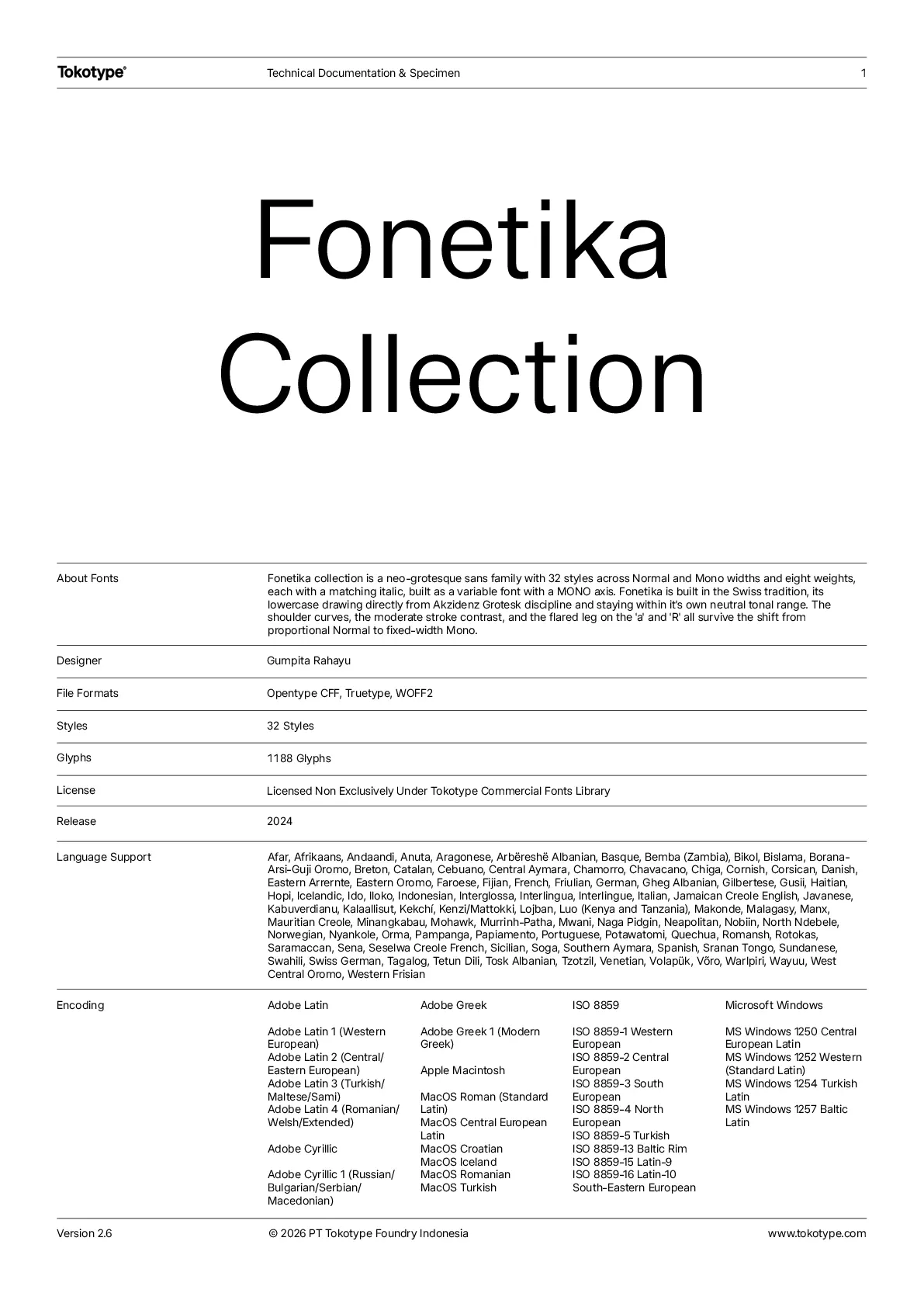
Fonetika Collection
Fonetika collection is a neo-grotesque sans family with 32 styles across Normal and Mono widths and eight weights, each with a matching italic, built as a variable font with a MONO axis. Fonetika is built in the Swiss tradition, its lowercase drawing directly from Akzidenz Grotesk discipline and staying within it's own neutral tonal range. The shoulder curves, the moderate stroke contrast, and the flared leg on the 'a' and 'R' all survive the shift from proportional Normal to fixed-width Mono.